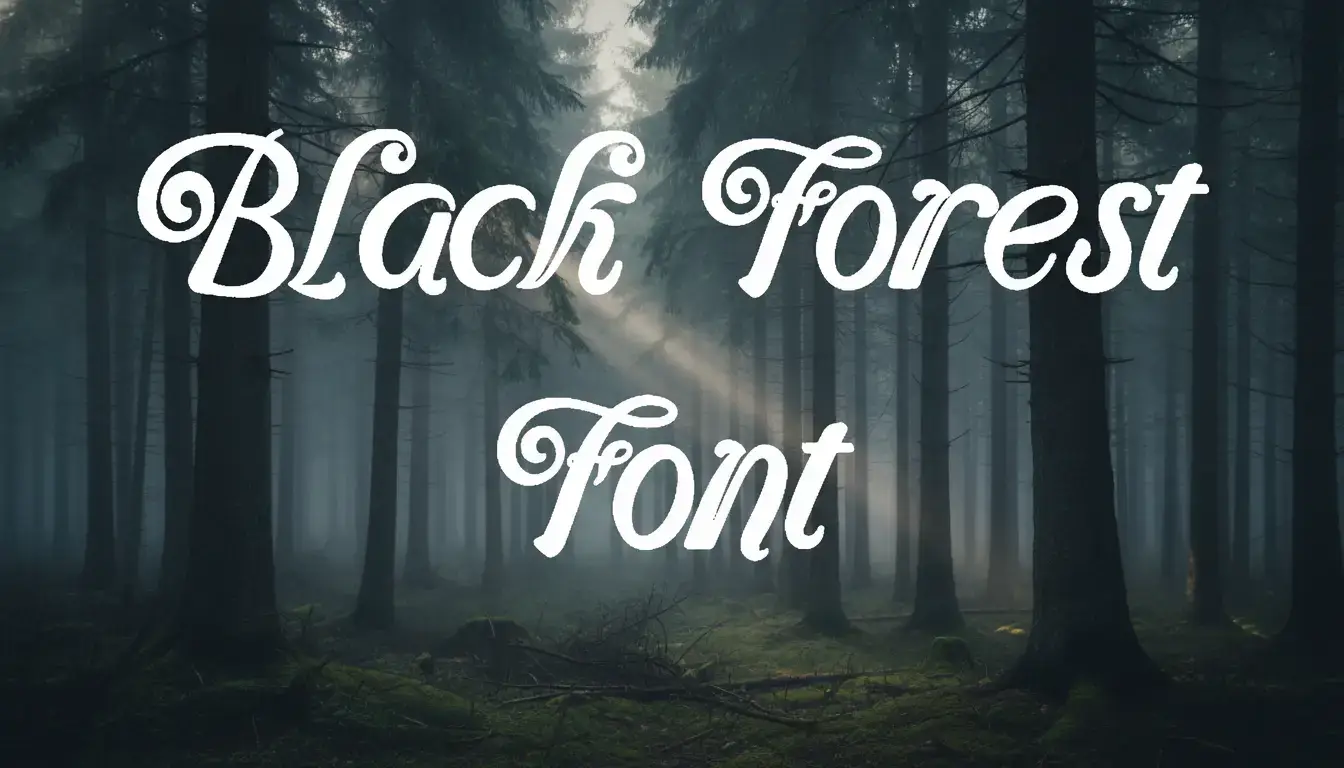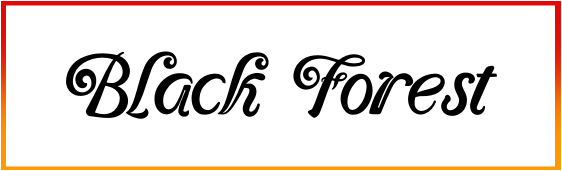
Black Forest Font
Black Forest
Black Forest is a fancy font made by Dedi Mujiono. It's a decorative display font with plenty of personality, made to grab attention. It's a free download, and you can try it with your own text in the preview above first.
You get every letter from A to Z in both cases and all the numbers from 0 to 9, which means Black Forest can handle full sentences, dates and prices. Everyday marks like &, !, ? and @ are there too. Thanks to its accented letters, it also works for Spanish, French, Portuguese and Italian, not just English.
Think of Black Forest for posters, logos and eye-catching headlines. Use it for one standout word or headline and let simpler fonts handle the rest.
Yes. Black Forest includes the accented letters needed for Spanish, French, Portuguese and Italian, so it works for more than just English.